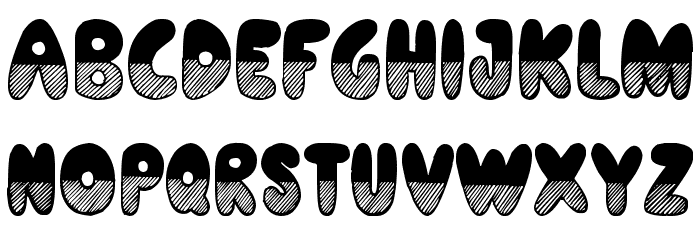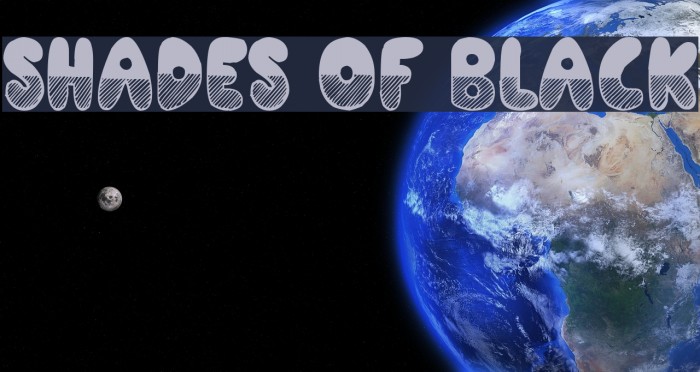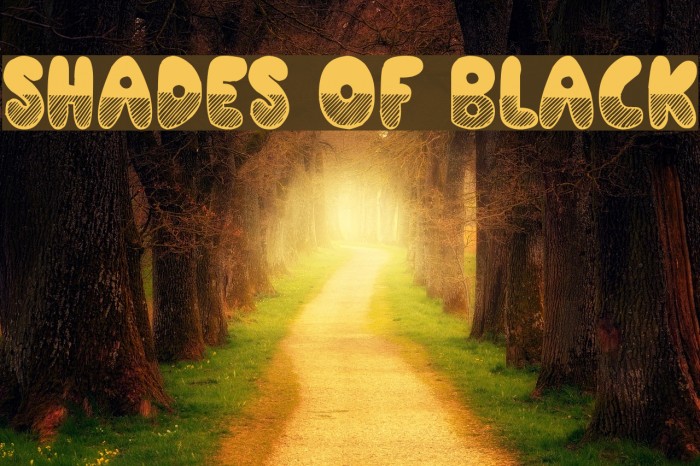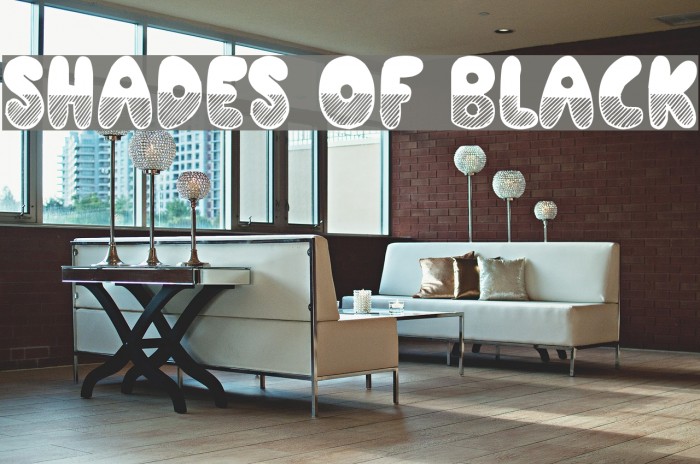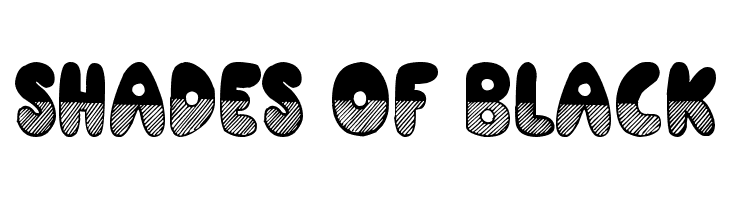
Shades of Black Font
This font features a bold and playful design with a unique shading effect that gives each character a sense of depth and dimension. The letters are rounded and thick, with a distinct pattern that alternates between solid black and lined shading. This creates a vibrant and eye-catching appearance, making it ideal for creative and artistic projects. The uppercase letters are consistent in style, maintaining a cohesive look throughout the alphabet. The font's whimsical nature makes it suitable for designs that aim to be fun and engaging.
A bold, playful font with unique shading and rounded characters.
- Proposed Projects: Ideal for children's book covers, playful branding, posters, and creative digital art.
- Overall Style: Playful, Artistic